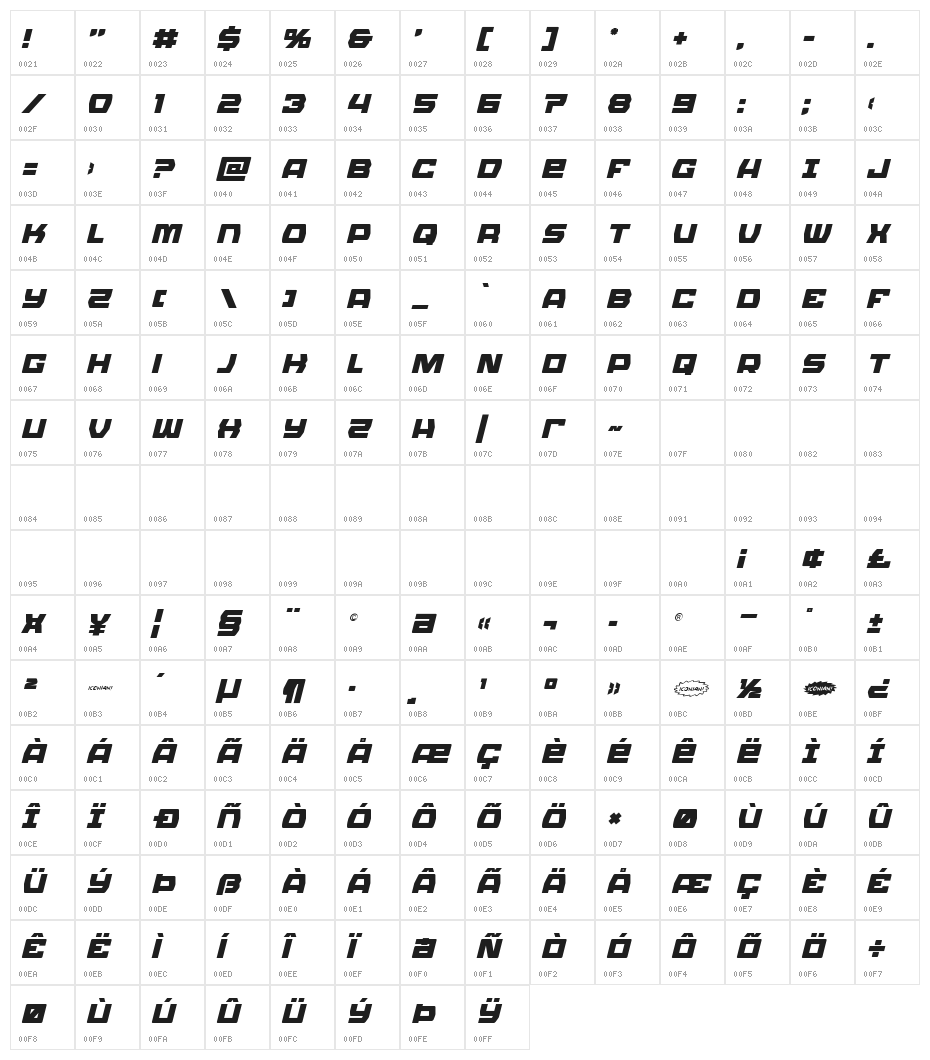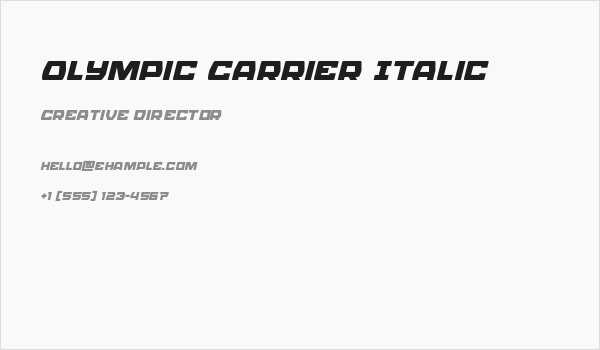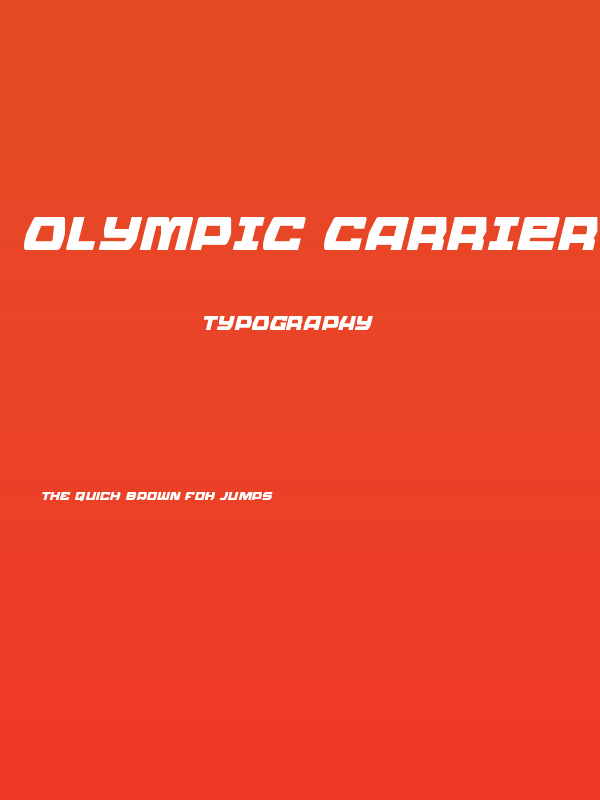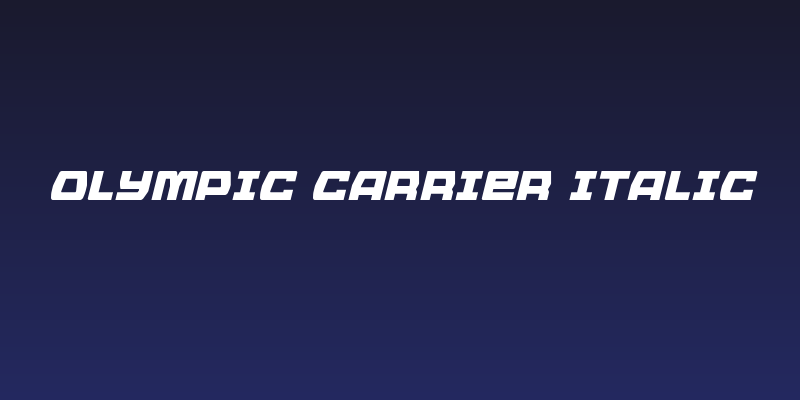
Olympic Carrier Italic Font
Olympic Carrier Italic Description
This font features a bold, italicized style with a modern, dynamic appearance. The characters are slightly slanted, giving a sense of motion and speed. The strokes are thick and consistent, providing a strong visual impact. The design is geometric with sharp angles and clean lines, making it suitable for attention-grabbing headlines or logos. The uppercase and lowercase letters maintain a uniform style, while the numbers and special characters complement the overall aesthetic. The font's boldness and italic nature make it stand out in any design context.
| Proposed Projects | Ideal for sports branding, dynamic posters, or modern advertising campaigns. |